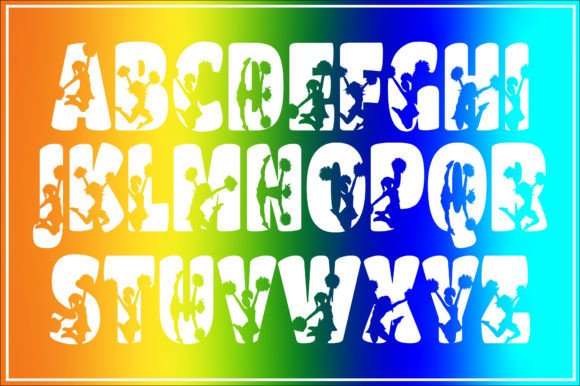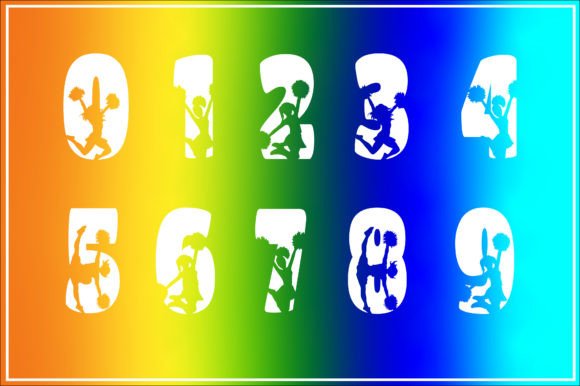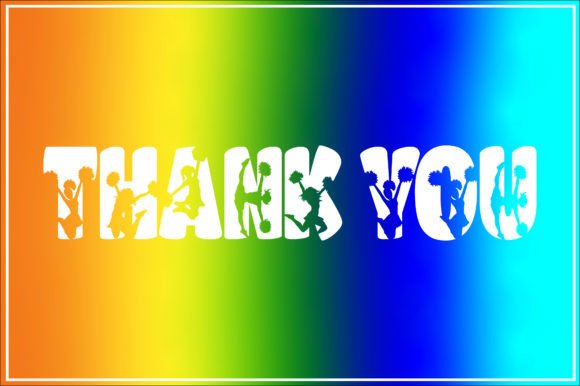
Adding a Dash of Joy to Your Creations
Have you ever been working on a project, and suddenly a spark of inspiration hits you? Maybe it’s a cartoon character that needs a certain font to bring it to life, or a title that needs a dash of whimsy to grab attention. Whatever the case, you’re on the hunt for the perfect font to match your vision.
Enter the Cheer Font, a delightful and original-looking decorative font that’s perfect for adding a touch of joy to your designs. Whether you’re working on a children’s game, a book cover, or a poster, this font is sure to bring a smile to your face and your audience’s as well. With its unique style and versatility, the Cheer Font is a valuable tool for designers looking to add a little extra something to their creations.
Cheer Font Key Features
- Font Family: Cheer Font is a sans-serif typeface designed to evoke a sense of optimism and energy.
- Character Set: The font includes a wide range of characters, including Latin, Greek, and Cyrillic alphabets, as well as punctuation and symbols.
- Font Size and Resolution: Designed to be highly legible at various font sizes and resolutions, making it suitable for use in digital and print media.
- Unique Characteristics: Cheer Font features a distinctive, rounded design with a friendly and approachable feel, making it ideal for use in branding, advertising, and editorial content.
Review of Cheer Font
Overall, I think Cheer Font is a unique and eye-catching choice for any design project. It has a fun and energetic feel that’s perfect for sports, wellness, and lifestyle brands.
Here are some things that work well: ✨
- High contrast between the bold and regular weights, making it easy to read in different contexts.
- Unique character shapes that add to the playful, energetic feel.
- Good legibility, even at smaller font sizes.
However, I do think there are some limitations: ⚠️
- The font may not be suitable for more formal or traditional brands, as it’s quite playful and attention-grabbing.
- The font could benefit from additional weights or styles to increase its versatility.
- Some characters may not display correctly in certain languages or on certain platforms.
Overall, I think Cheer Font is a great choice for designers who want to add a bit of personality and flair to their projects. Just be mindful of its limitations and use it in contexts where it will shine.
Practical Application Guide for Cheer Font
Tips for Getting the Most Out of Cheer Font
Use the Cheer font in bold or italic styles to add emphasis to your text. Experiment with different font sizes to create visual hierarchy in your design. Use the font in combination with other design elements to create a cohesive and visually appealing design.
The Cheer font is commonly used in sports and fitness branding, as well as in designs related to youth and fun. It’s also used in designs that require a playful and energetic tone.